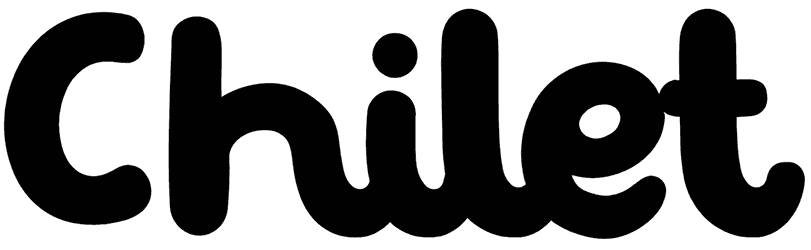
Chilet Font
Chilet is a lovely donut font that has high legibility, thus it can perfectly represent all of your editorial projects, including social media posts, book covers, stickers, illustrations, and product packaging in the best possible form.